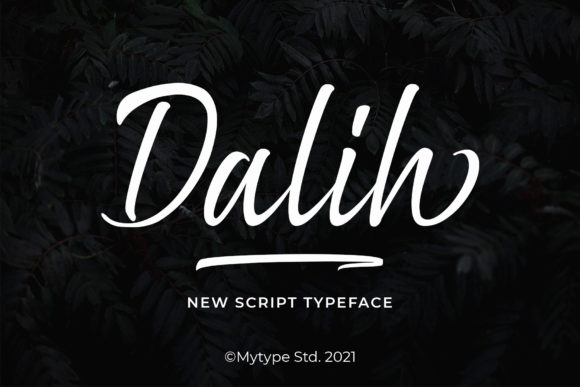
Welcome to the world of Dalih Font, the ultimate font family that will bring a touch of handwritten charm and sophistication to your creative projects. Immerse yourself in the beauty of this modern calligraphy script, designed to evoke a sense of warmth, elegance, and heartfelt emotions.
Dalih Font, crafted by the talented designers at Mytype Studio, embodies the very essence of romance and personalization. Picture this: a wedding invitation adorned with the flowing strokes of Dalih, the curves of each letter dancing harmoniously to create an unforgettable keepsake. Or perhaps a greeting card, its message penned in Dalih's delicate embrace, carrying your heartfelt words with an air of tender affection.
With Dalih Font, the possibilities are endless. Its versatility extends far beyond wedding stationery and cards. Let your imagination soar as you craft logos that exude elegance, branding that speaks volumes, and social media posts that capture hearts. Dalih's graceful lines lend themselves effortlessly to posters, flyers, and brochures, adding a touch of sophistication that captivates the eye.
Experience the ease and convenience of Dalih Font's PUA encoding, allowing you to effortlessly access all of the glyphs and swashes with a few simple clicks. Unleash your creativity and explore the myriad possibilities that await, transforming your designs into masterpieces that resonate with emotion and timeless beauty.